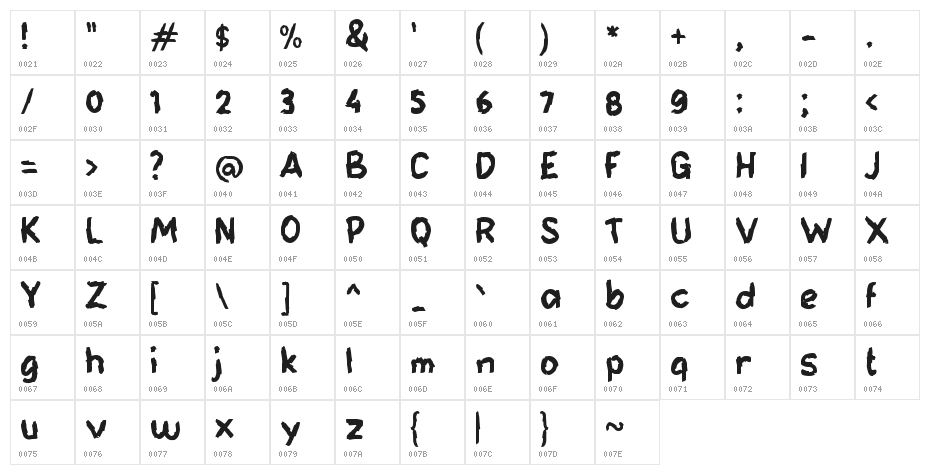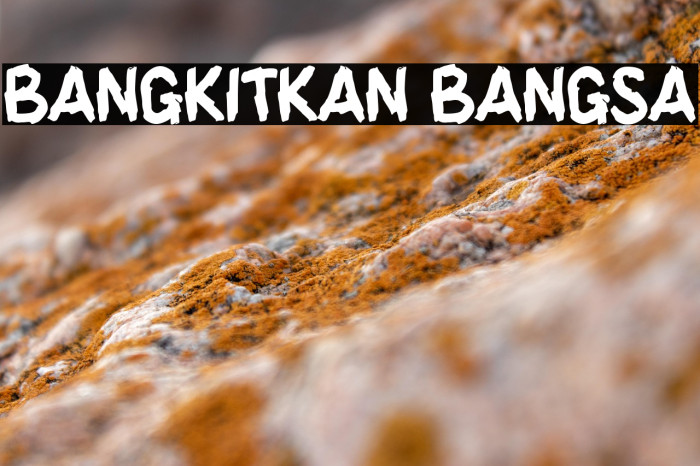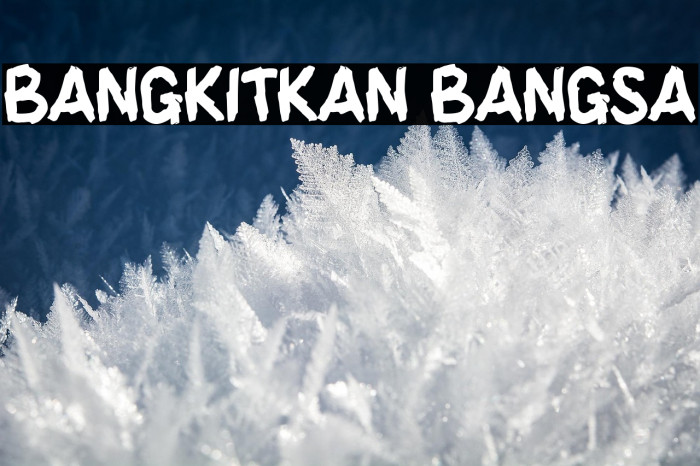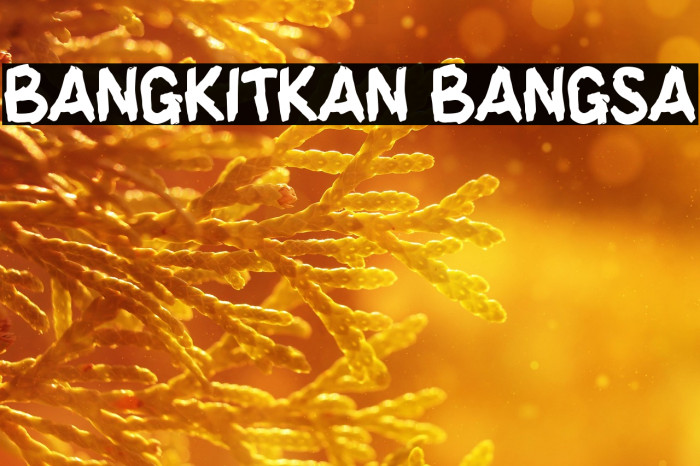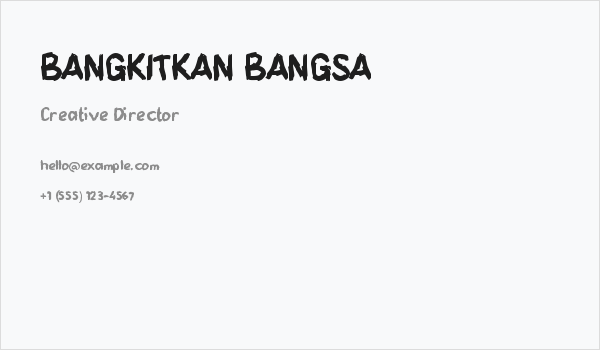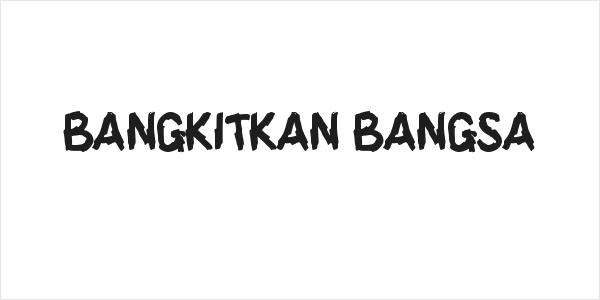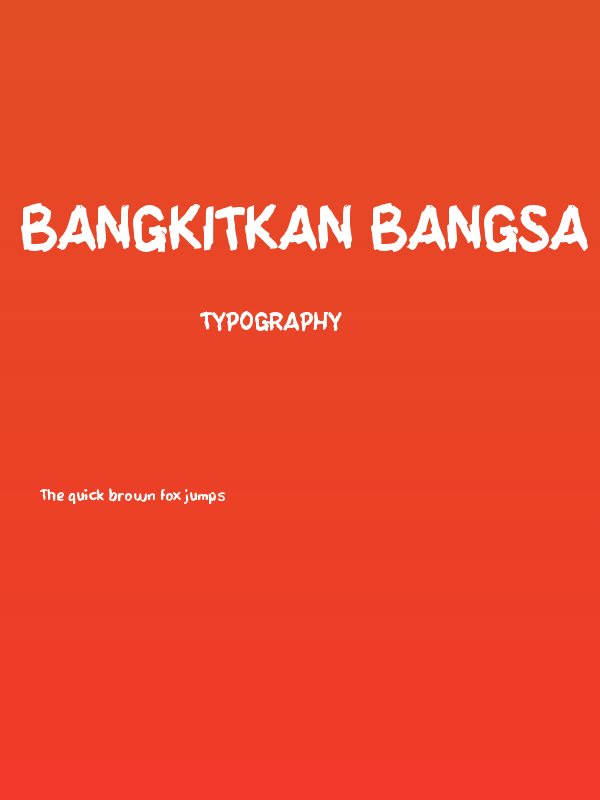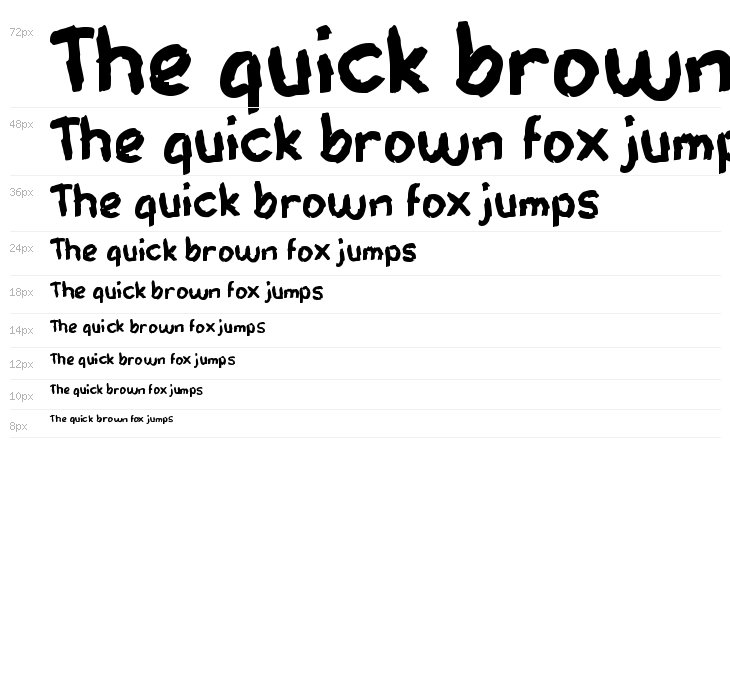
BANGKITKAN BANGSA Font
BANGKITKAN BANGSA Description
This font exhibits a bold and energetic style with a hand-drawn appearance, characterized by its irregular and dynamic strokes. The letters have a rough, textured look, giving them a raw and expressive feel. The uppercase and lowercase letters maintain a consistent style, with a slightly playful and informal vibe. The numbers and special characters follow the same aesthetic, ensuring a cohesive look across all elements. This font's unique style makes it stand out, perfect for projects that require a touch of creativity and individuality.
| Proposed Projects | Ideal for posters, album covers, graffiti art, and creative branding projects. |